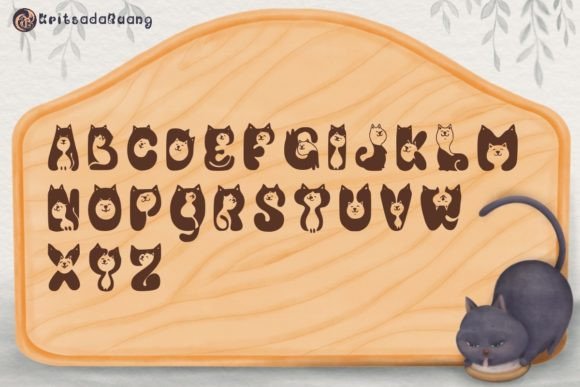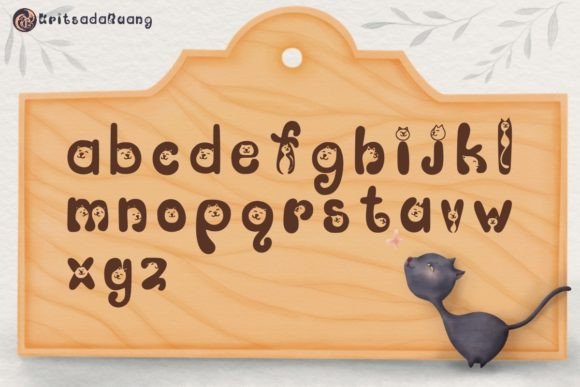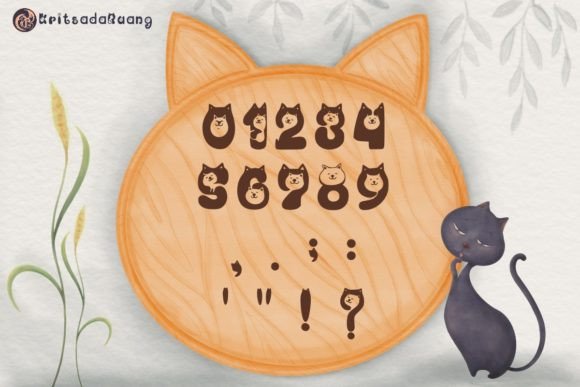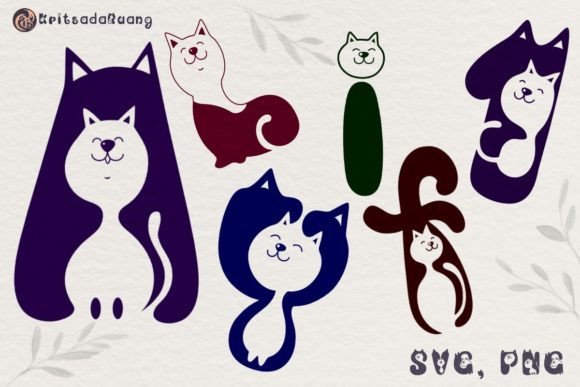
The Purrfect Font: A Deep Dive into Black Cats Font
I’ll never forget the time I was working on a project for a cat cafe, and I just couldn’t find the right font to capture their playful and affectionate vibe. The client wanted something that would appeal to cat lovers of all ages, but I was stuck. That’s when I stumbled upon Black Cats Font, and it was love at first sight! 🐱
Black Cats Font embodies playfulness and authenticity, making it the perfect choice for any project that needs a friendly feline touch. In this article, I’ll share my experience with this adorable decorative font, its features, and how to make the most of it in your designs.
- ✨ Unique and quirky character designs that will make your project stand out
- ✅ Extensive OpenType features, including glyphs and stylistic alternates
- 🎉 Perfect for a variety of design projects, from invitations to social media graphics
- 😻 Adorable cat-themed elements that will delight cat lovers
While Black Cats Font is an amazing addition to any design project, there are a few things to keep in mind:
- ⚠️ Some characters may not be suitable for body text, as they can be quite ornate
- 🤔 Limited use of uppercase letters, which may limit its use in certain projects
The Designer Inspiration Behind Black Cats Font
According to its designer, Black Cats Font was inspired by the playful and affectionate nature of cats. The designer wanted to create a font that would capture the whimsy and charm of our feline friends, and the result is a truly unique and adorable font.
Q: What type of projects is Black Cats Font best suited for?
A: Black Cats Font is perfect for a variety of design projects, including invitations, social media graphics, and branding materials.
Q: Is Black Cats Font easy to read?
A: While Black Cats Font is a decorative font, some characters may not be suitable for body text. It’s best used for headlines, titles, or short paragraphs.